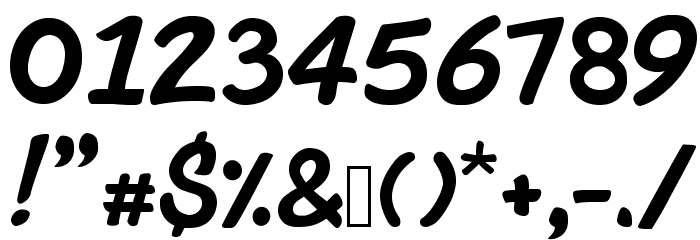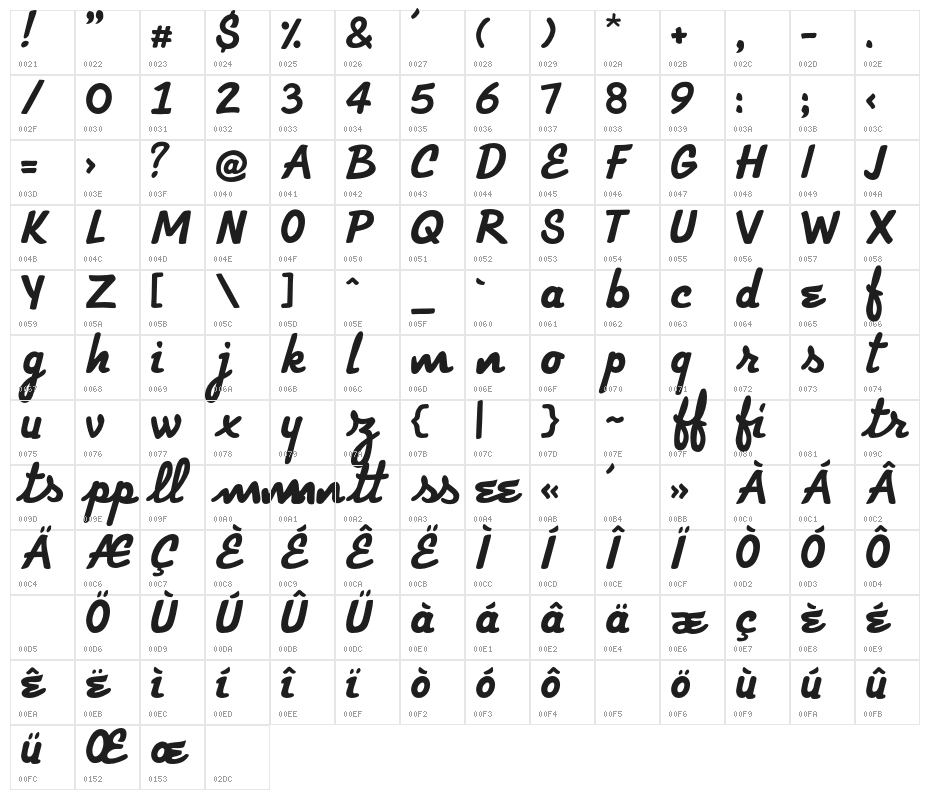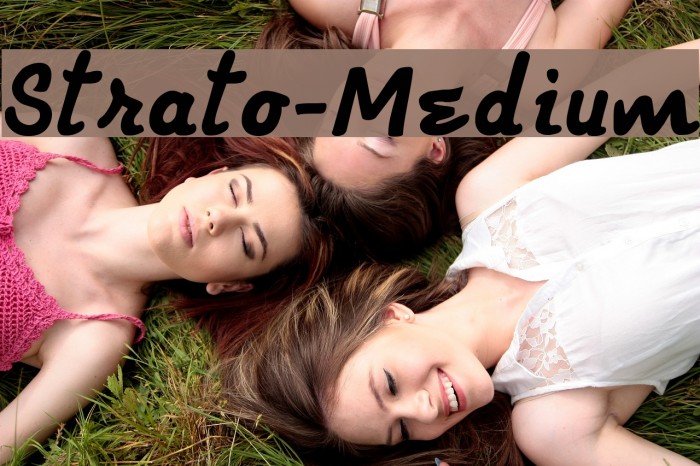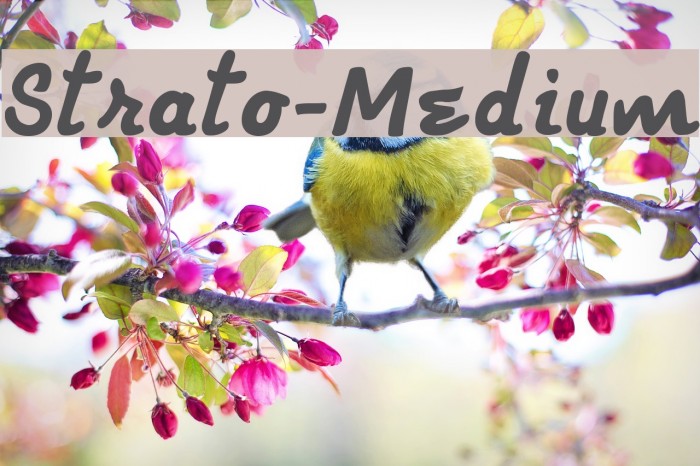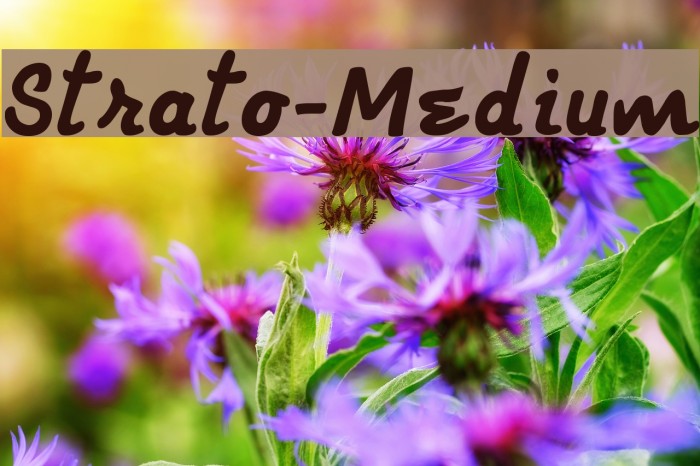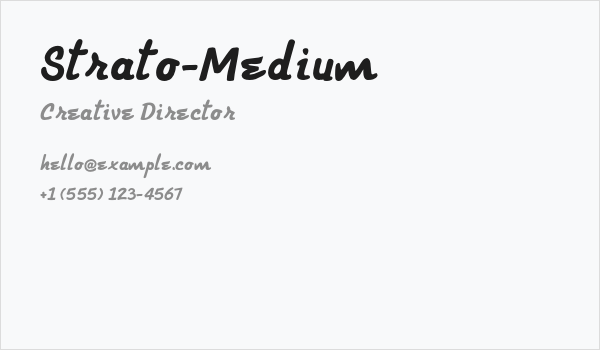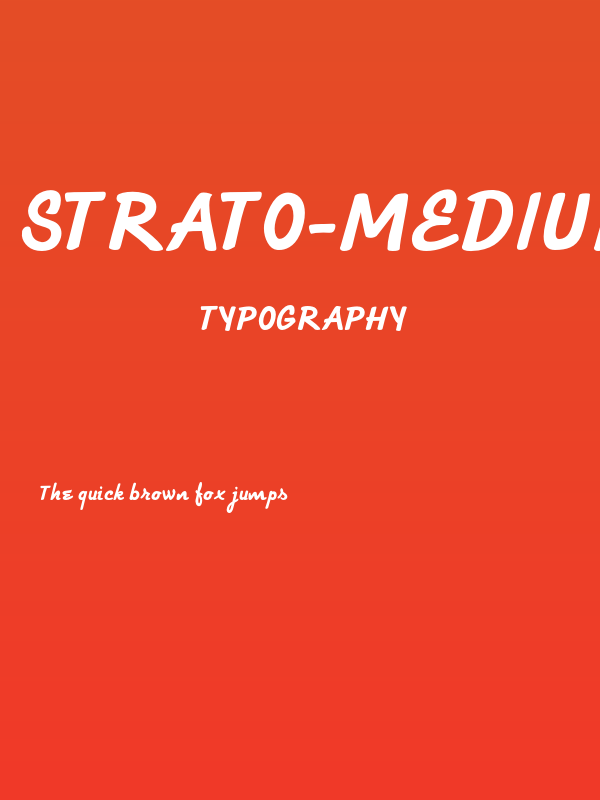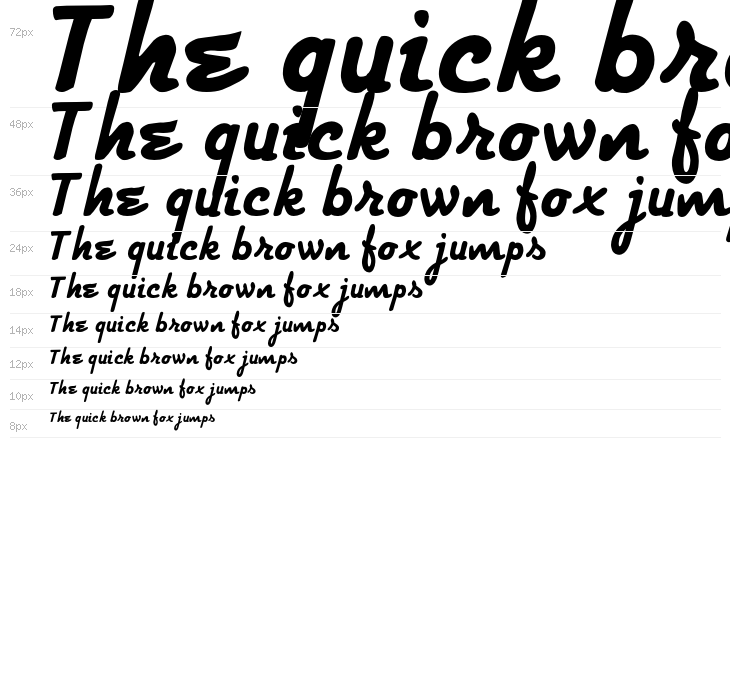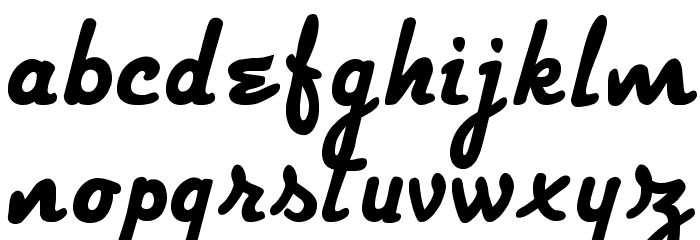
Strato-Medium Font
Strato-Medium Description
This font features a bold and dynamic script style with a smooth, flowing appearance. The uppercase letters are slightly slanted, giving a sense of movement and energy, while the lowercase letters maintain a consistent rhythm with rounded edges and a playful character. The numerals are bold and clear, ensuring readability. Special characters are well-integrated, maintaining the overall aesthetic of the font. The strokes are consistent in width, providing a uniform look across all characters.
| Use Case | Logos, Headlines, Branding |
| Proposed Projects | Ideal for branding projects, logo design, and headlines that require a touch of elegance and energy. |